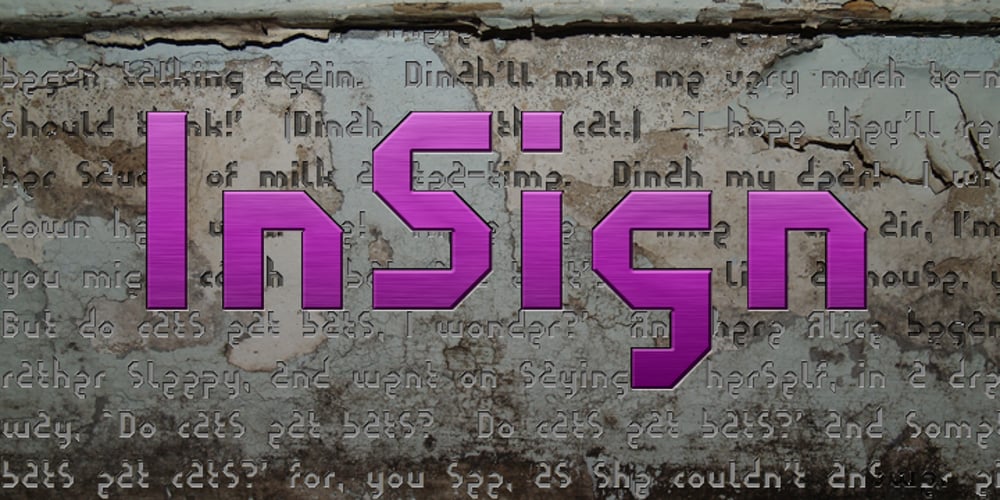
InSign
InSign font
InSign Font Family was designed by Konstantin Boldovskiy and published by Konst.ru. InSign contains 2 styles and family package options. Geometric font for paradoxical or short texts. Also maybe use for headlines, logos etc.